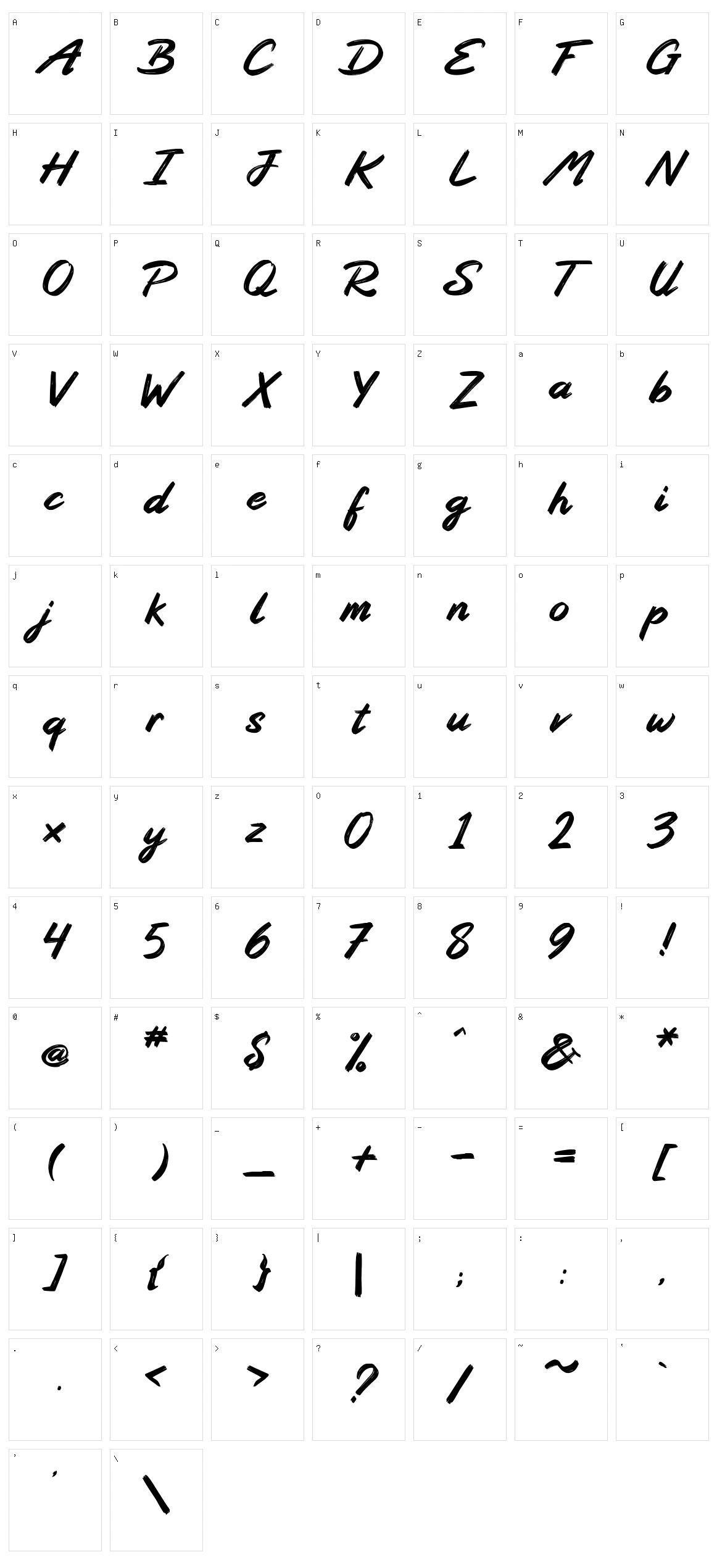
The free font Groundation Foundation is carefully designed by Cat.B, showcasing a thoughtful balance of creativity and usability and falls under the Script font style. When you download the ZIP file, it contains only 132.23 KB of font files, making it lightweight and quick to download. Please review the license details below to understand permitted usage and distribution rights. If license information is not available, we recommend using this font for personal projects only or contacting the author directly for commercial usage permissions.